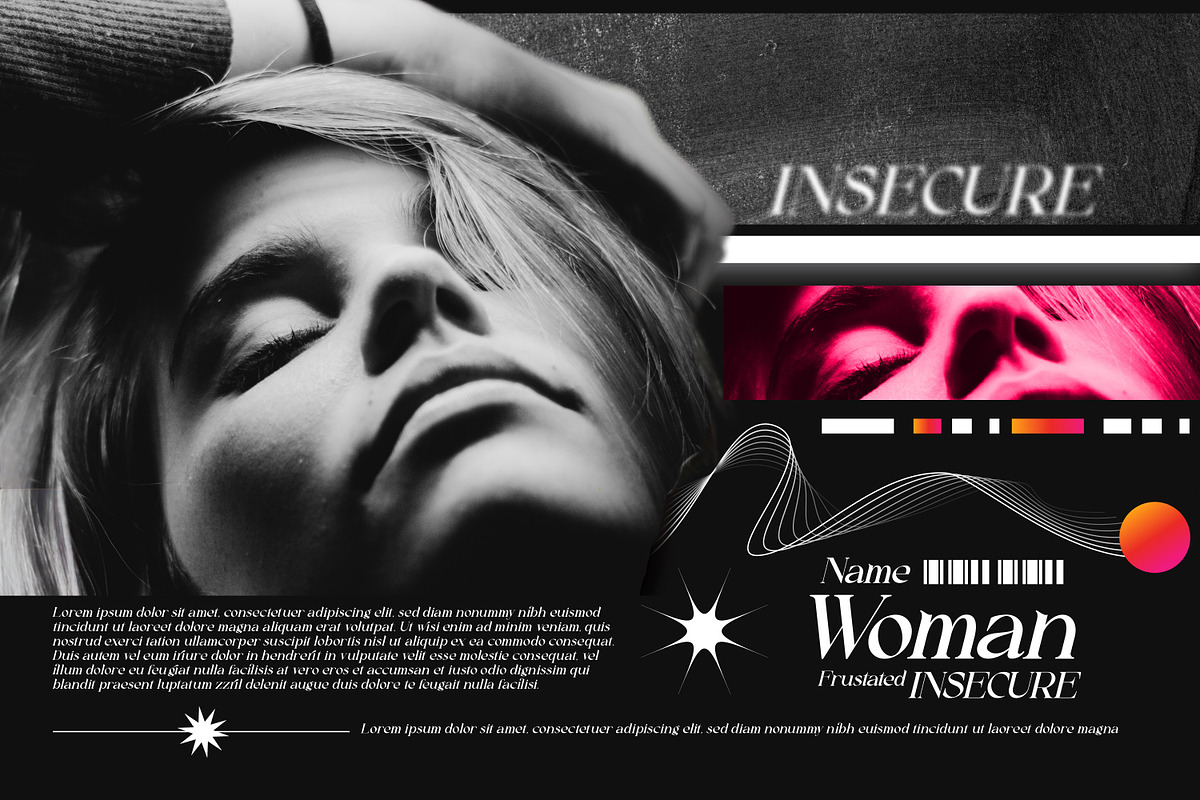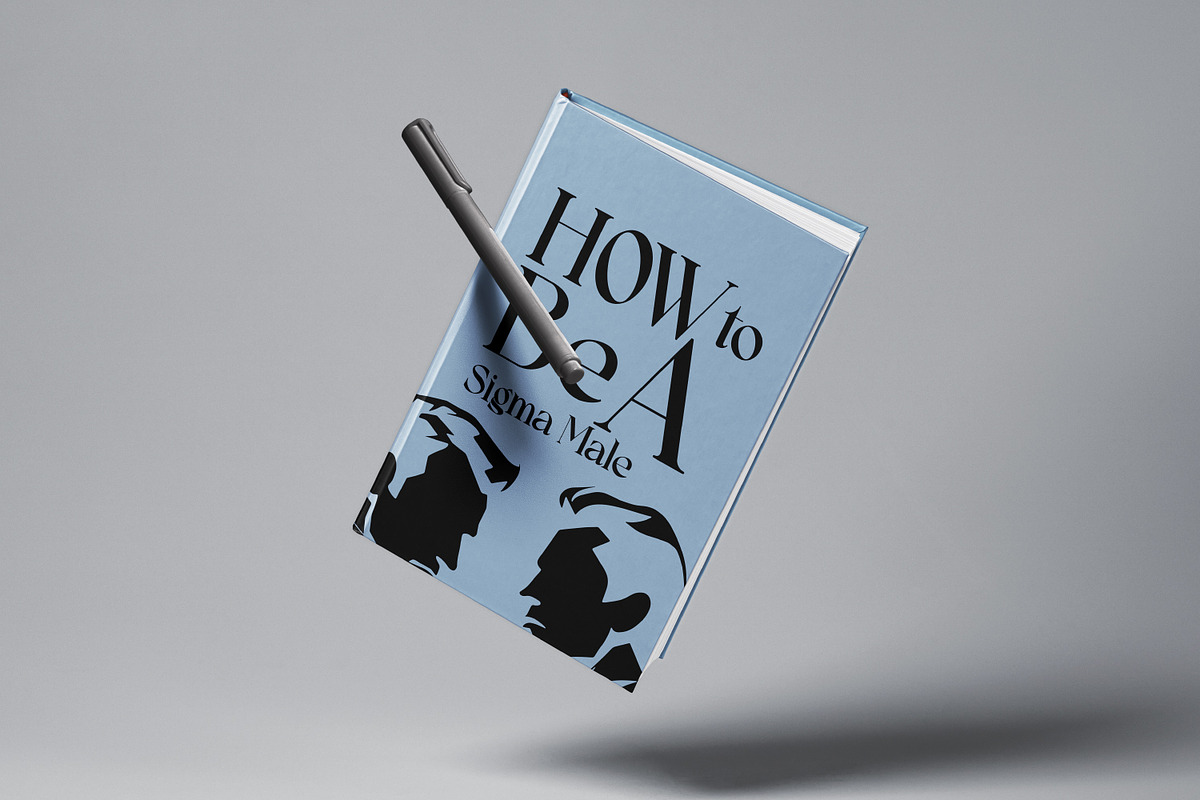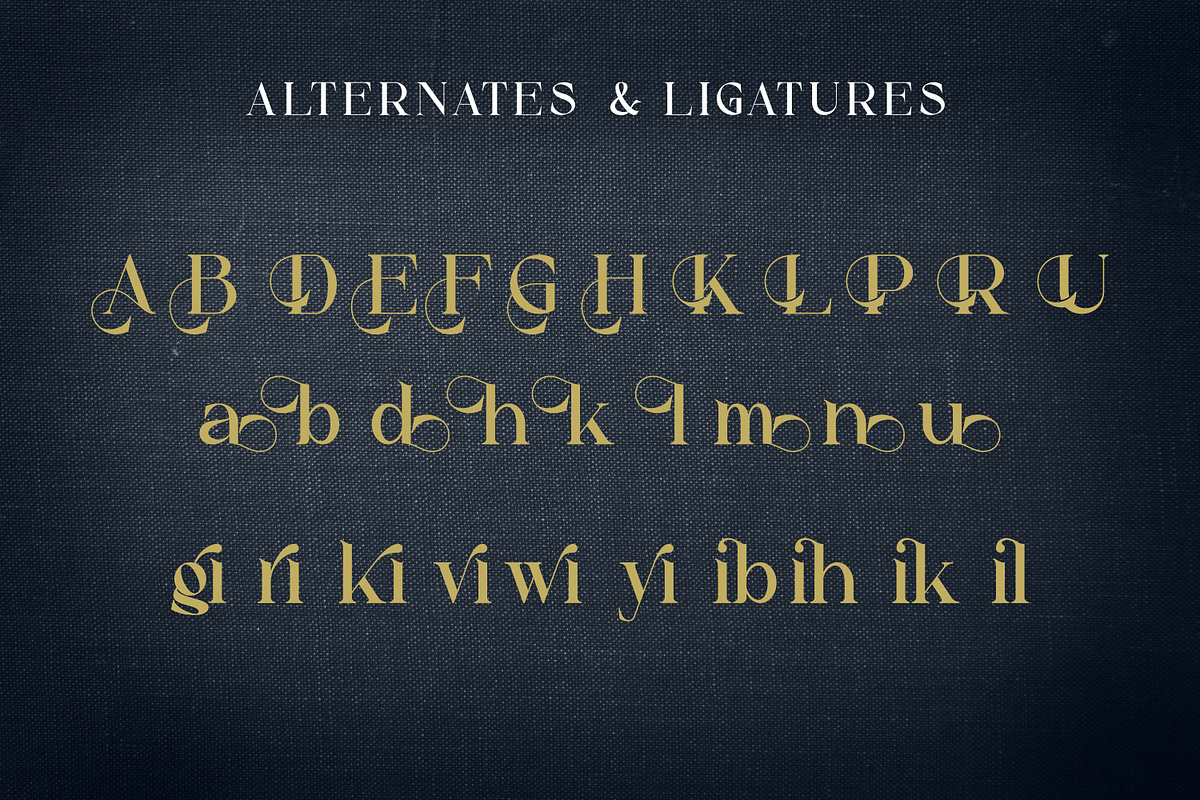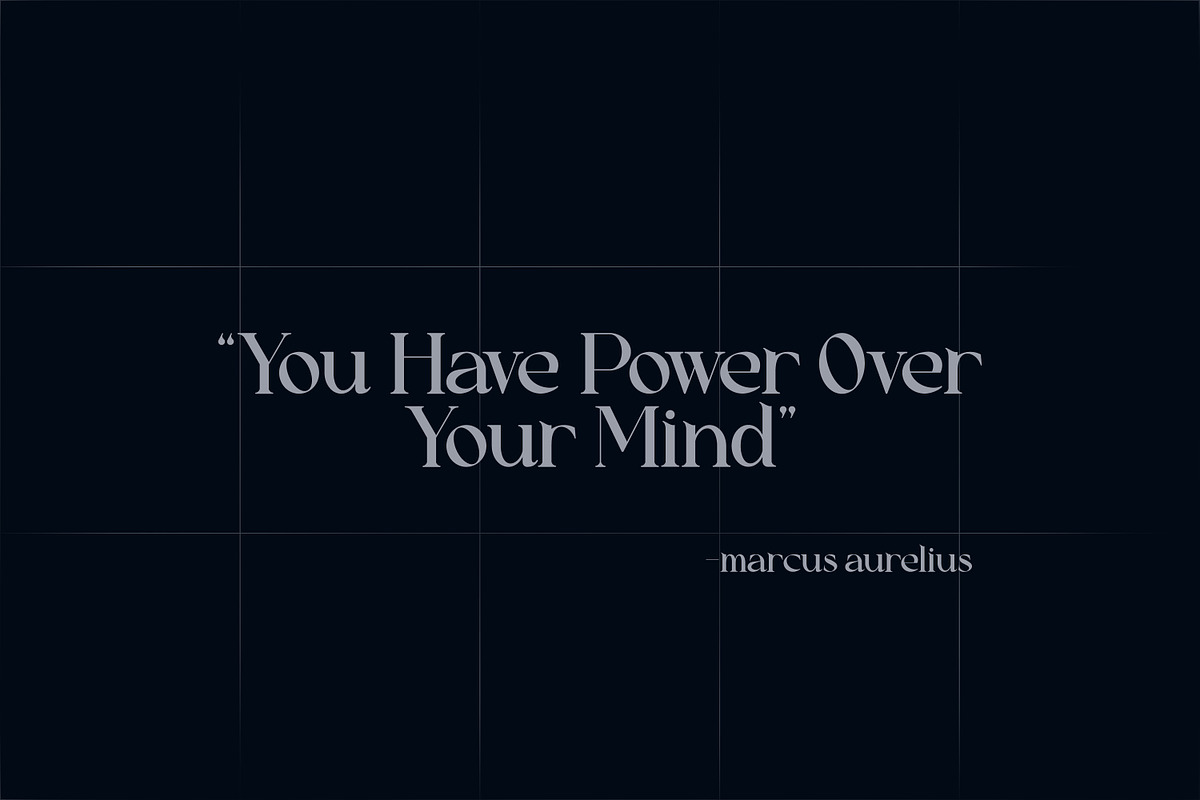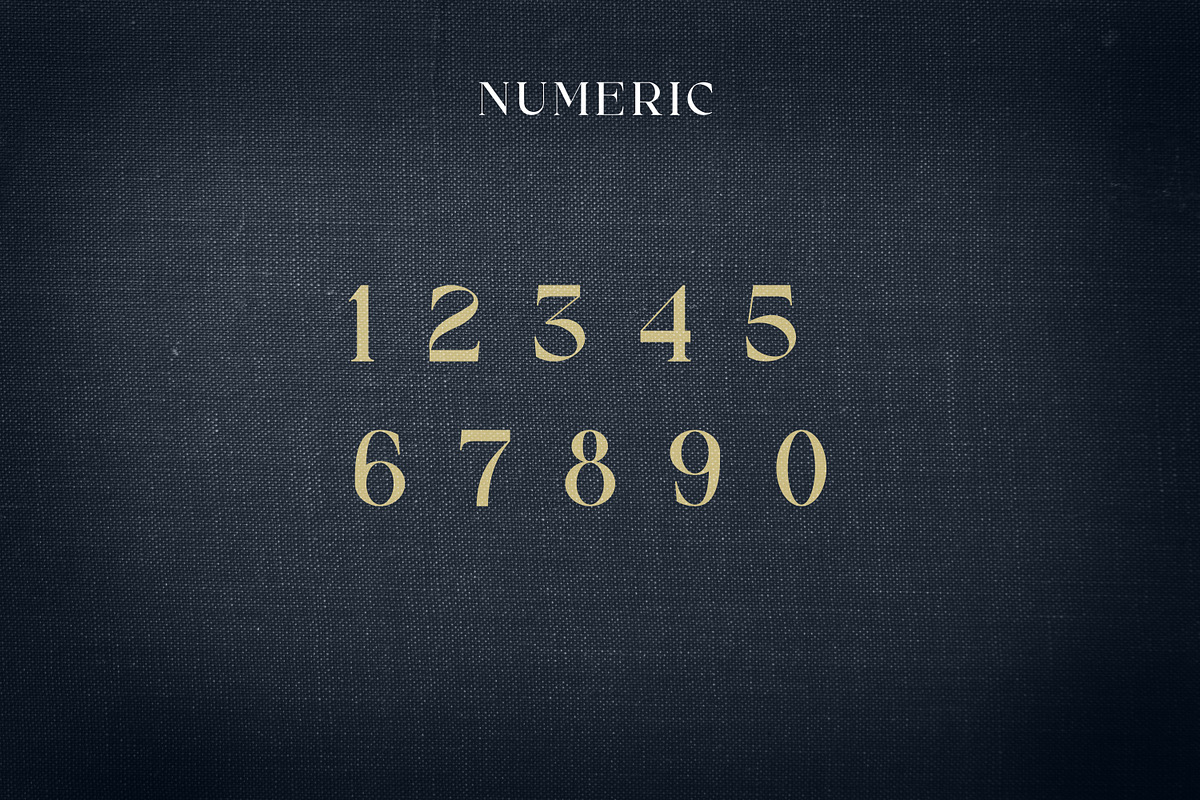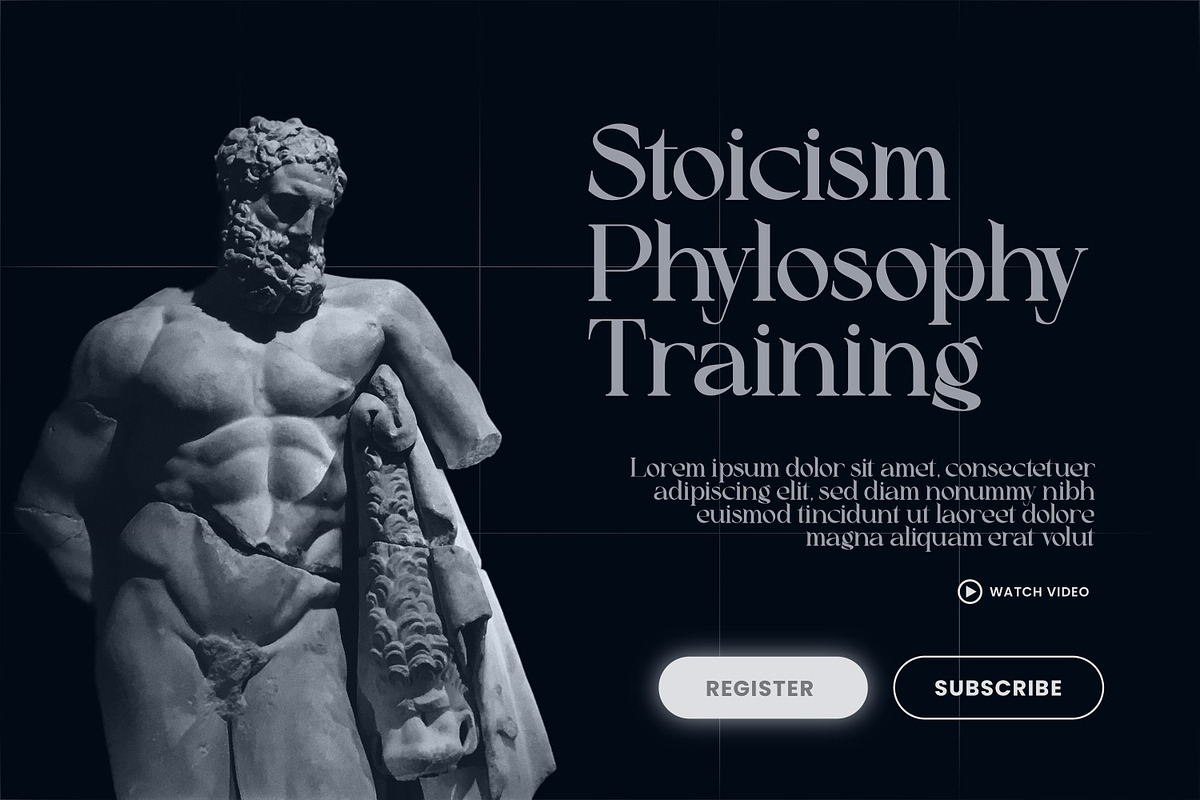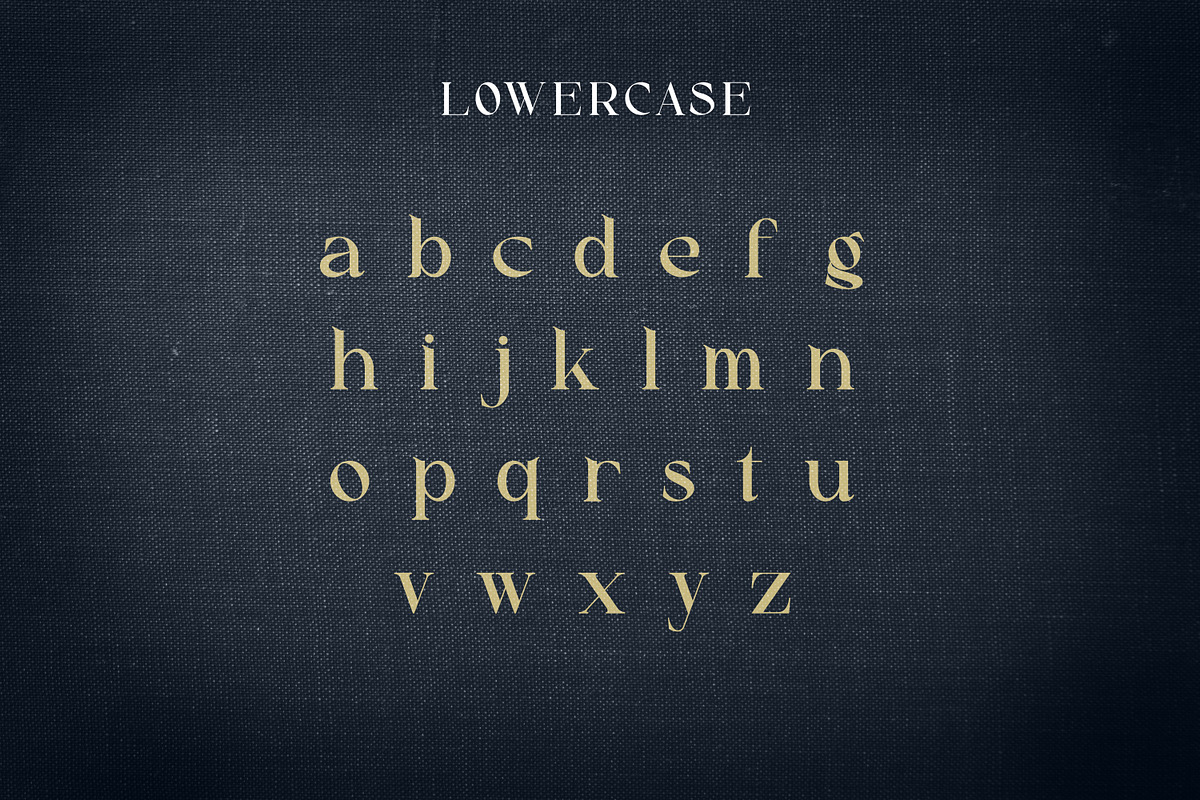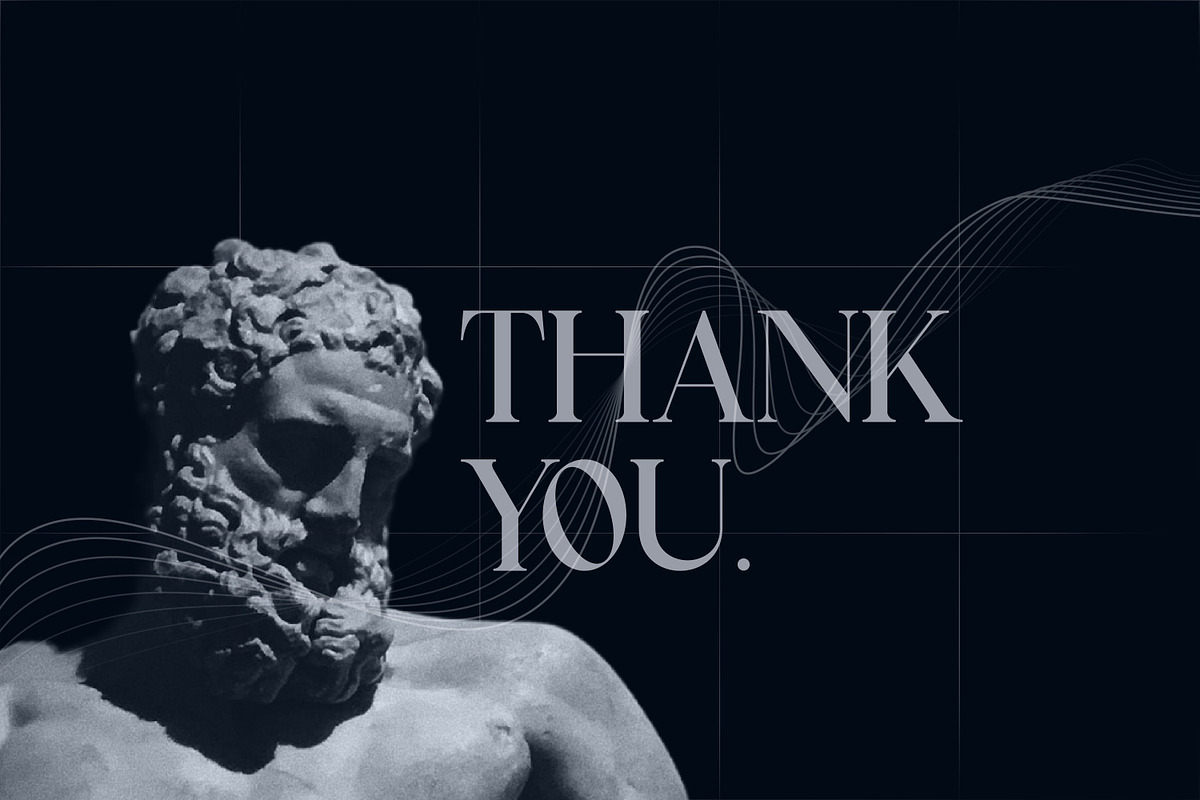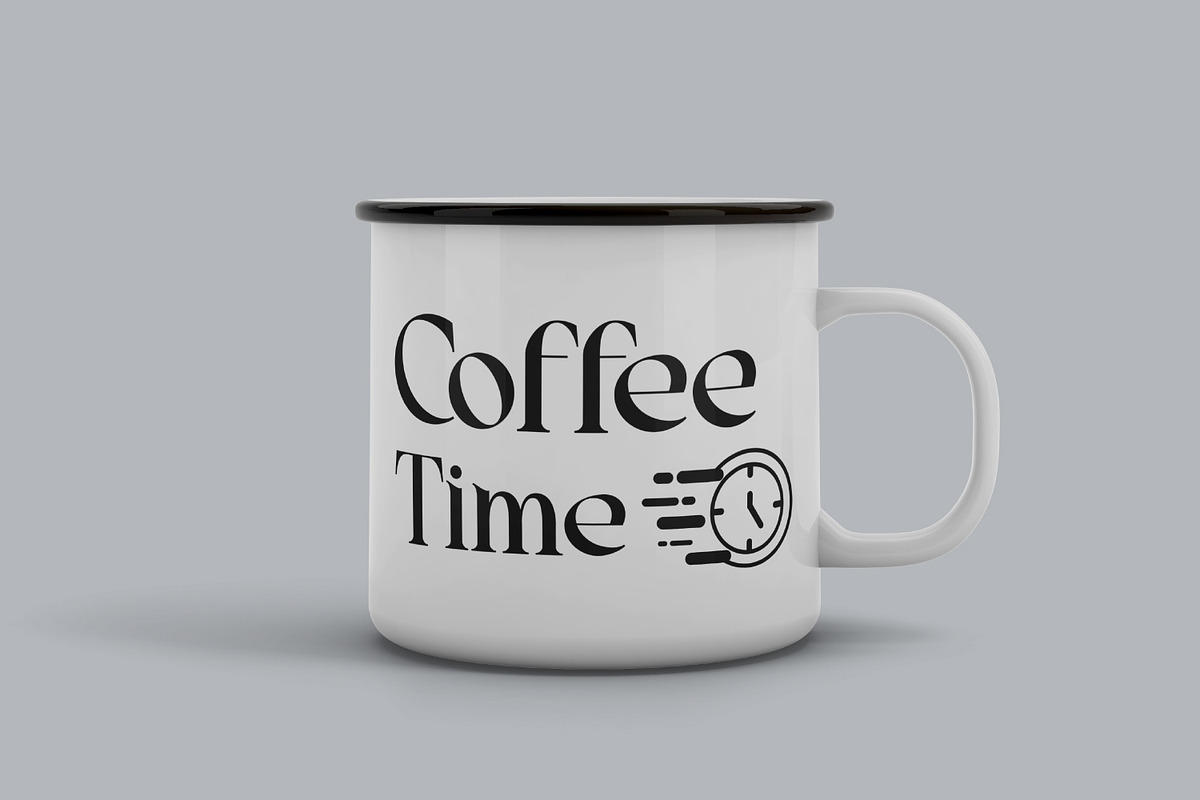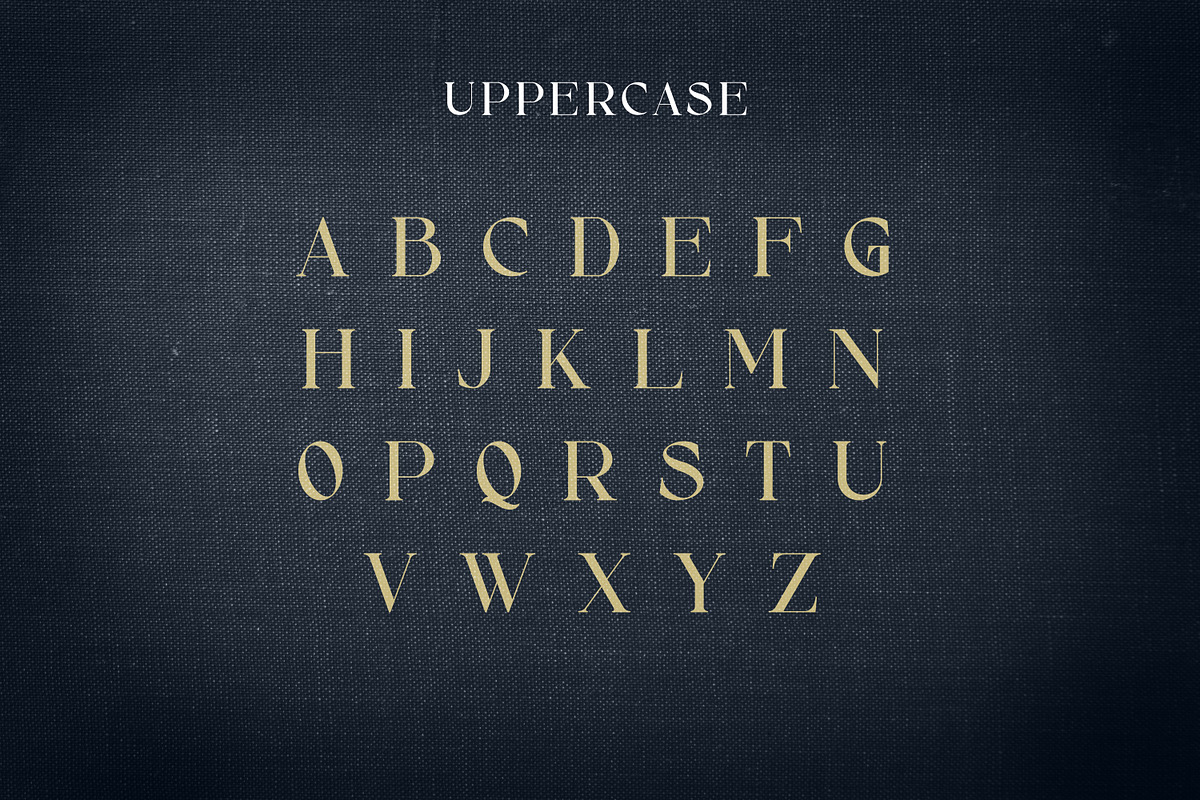
Alibold
Alibold - Elegant Serif Font, from Rishsketch Studios, is a premium Serif Font, perfect for any project that requires a distinctive, and premium feel.
Ligature, Alternate & Multilingu